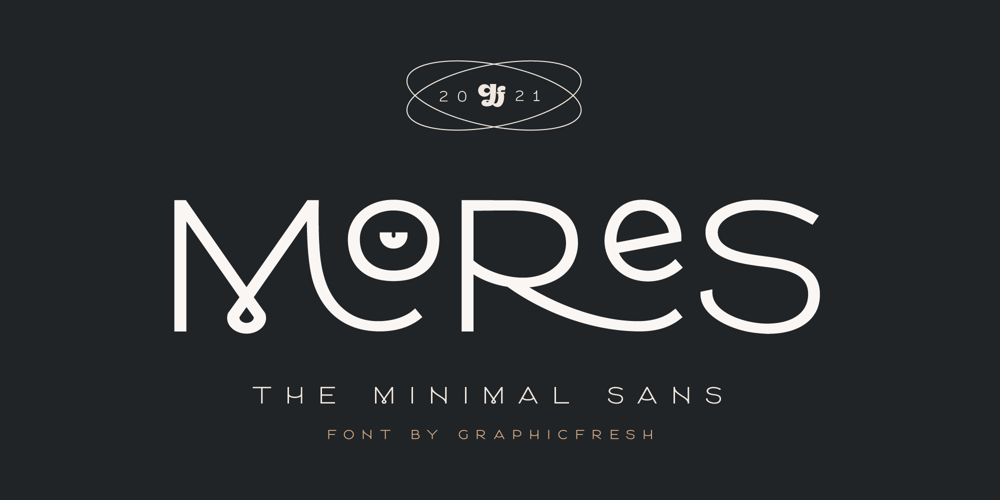
Mores
Mores font
Mores Font Family was designed by Muhammad Husni Haikal and published by Graphicfresh. Mores contains 4 styles and family package options. Mores – Minimal SansIntroducing a minimalist style font. Fonts that are suitable for branding, packaging, logos and others. This font comes in regular and medium formats. Including italics in it. If you like this font, don’t forget to collect it and share it with your loved ones.If there are things you want to ask or problems you face with this font. Don’t hesitate to ask us. Because we are very happy to help you.ThanksGraphicfresh